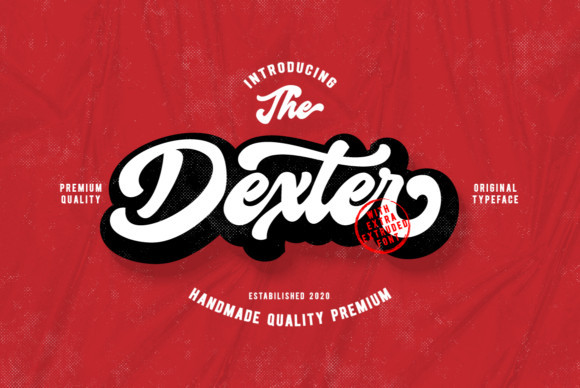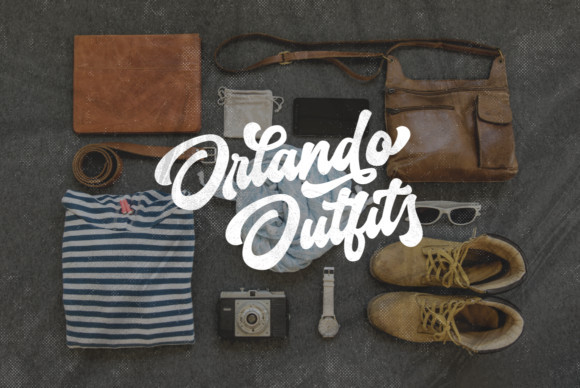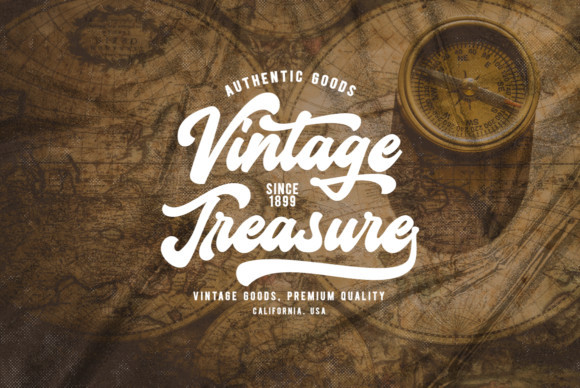
Dexter Font
Dexter is a flowing handwritten font, sending out a vintage vibe. Fall in love with its incredibly versatile style and use it to create gorgeous wedding invitations, beautiful stationary art, eye-catching social media posts, and much more!